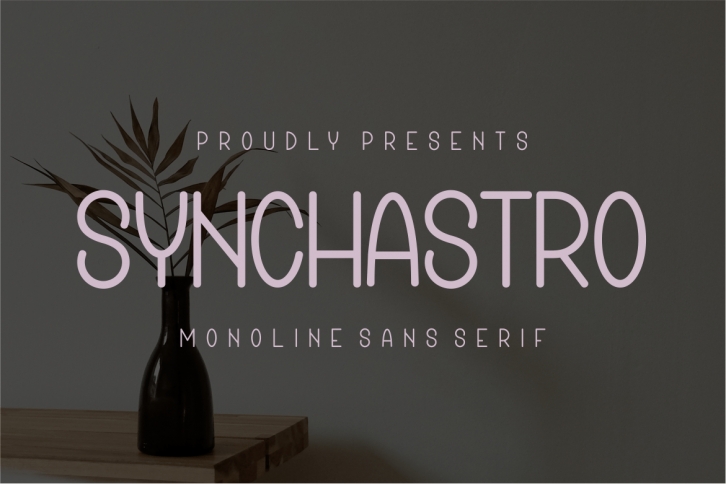
Synchastro is a cool and fresh sans serif font. It has a classy, elegant, and modern look that can be used for logos, branding, invitations, stationery, wedding designs, social media posts, and much more!